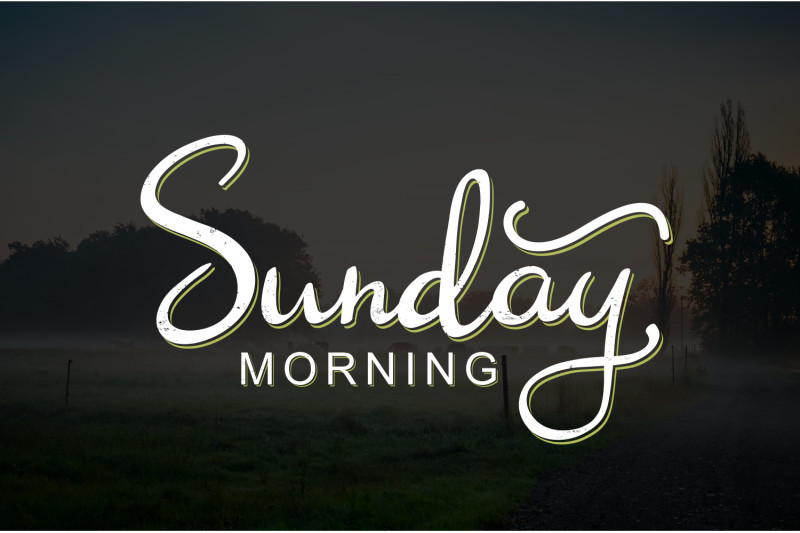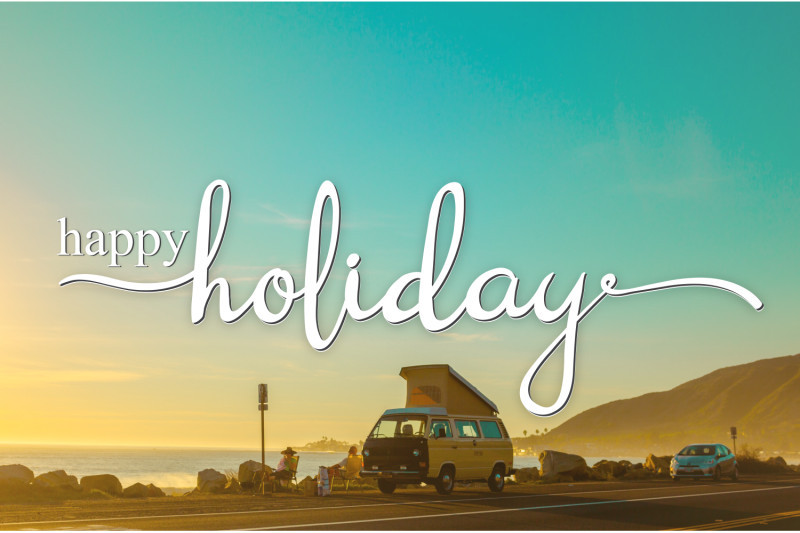
Celinetta Script Font
Introducing Celinetta, a modern calligraphy script that bring romantic feel. The natural hand writing script is suitable for you who needs a typeface for headline, logotype, apparel, invitation, branding, packaging, advertising etc. This typeface is comes in uppercase, lowercase, punctuations, symbols & numerals, stylistic set alternate, ligatures, etc also already PUA encoded.